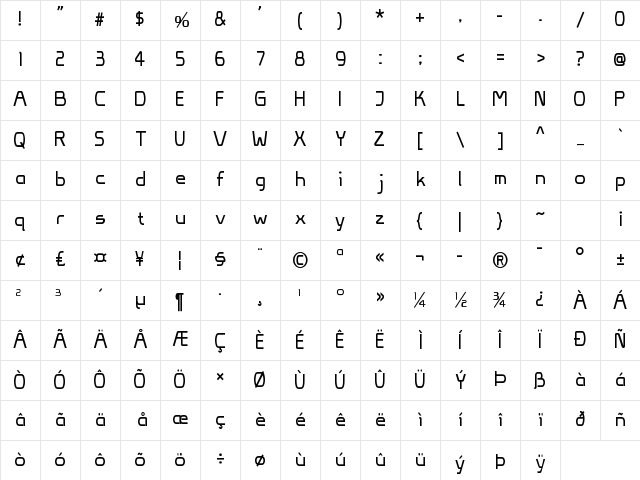
Viva Persib Regular Free Font
Viva Persib Regular
Designer: wates awal
Design Context for Viva Persib
Viva Persib is a composed and adaptable typeface that performs quietly and consistently across a wide range of design contexts.